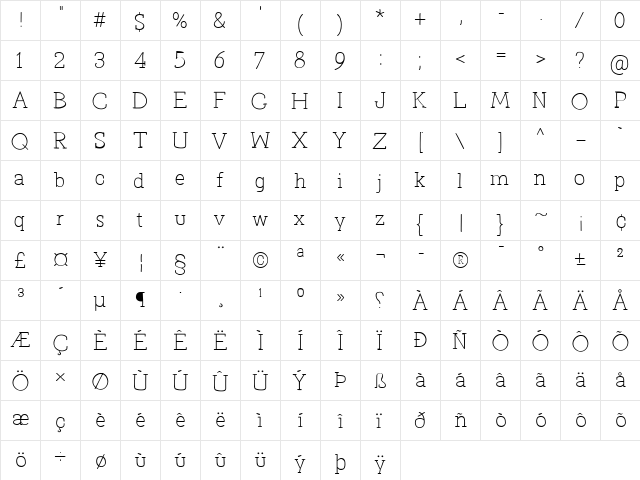
Primitiva Slab Light
| Foundry | J. L. Mu֯z |
| Designer | J. L. Mu֯z |
Design Context for Primitiva Slab Typeface
Primitiva Slab features prominent, blocky serifs that give it a confident, grounded presence — equally at home in editorial settings and bold branding work. Its slender proportions lend an understated elegance to any composition.
Works well in editorial design, news publishing, impactful branding, and poster typography.
Pro Tip: Try Primitiva Slab set tight in headlines for a classic editorial feel. Its slab serifs create strong horizontal rhythm that anchors a page layout.